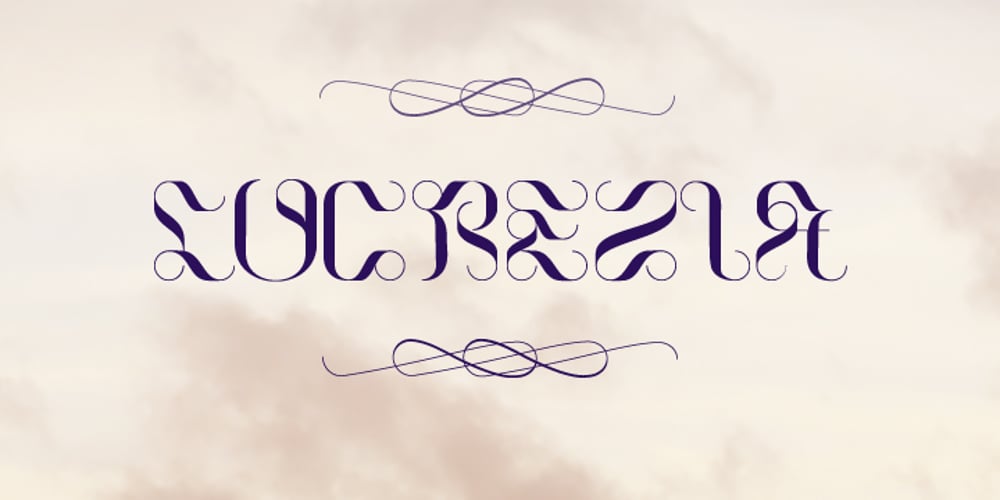
Lucrezia Font Family was designed by Marta Podkowińska and published by Florence. Lucrezia contains 1 styles and family package options. A decorative capitalis font inspired by the renaissance font Rotunda and old calligraphic foundings. From the beginning my aim was to design a font which focusses on simplyfing historical typography. I wanted to give people the possiblity to write with letters which refer to history but still are readable and modern. It is perfect for headlines and logos that need a historical touch. The font Lucrezia and its dangerous forms (the stitchy endings) are also inspired by the history of Lucrezia Borgia, who as we know, was a very mysterious person.